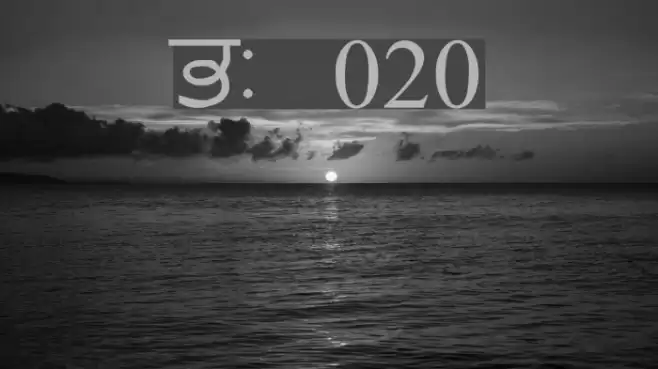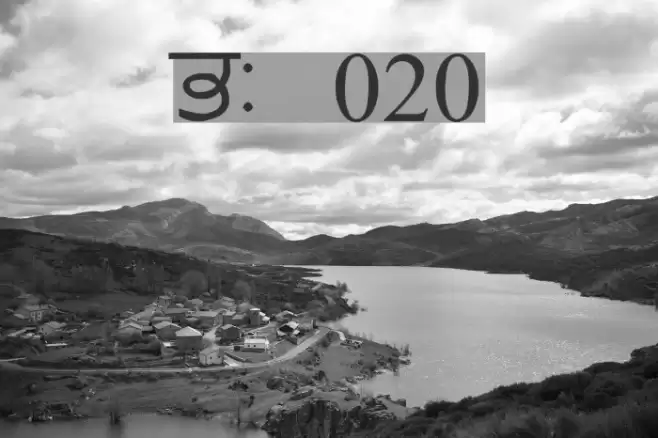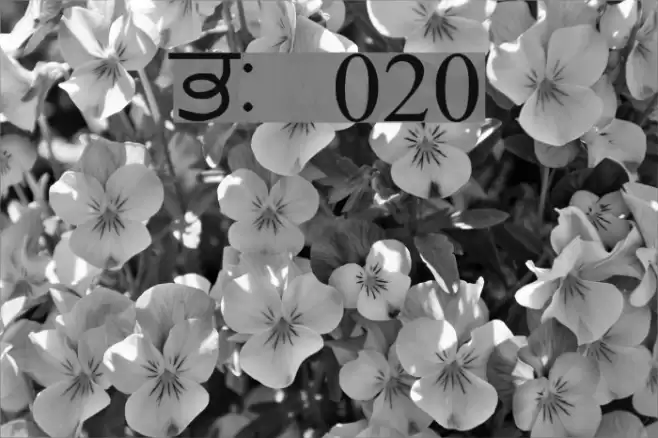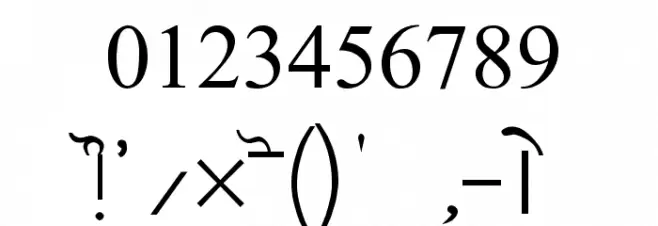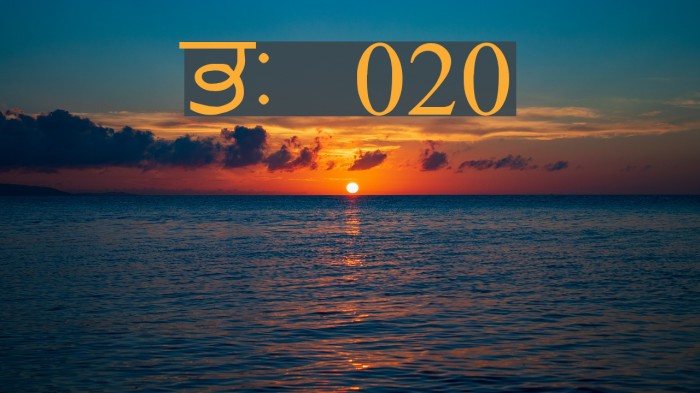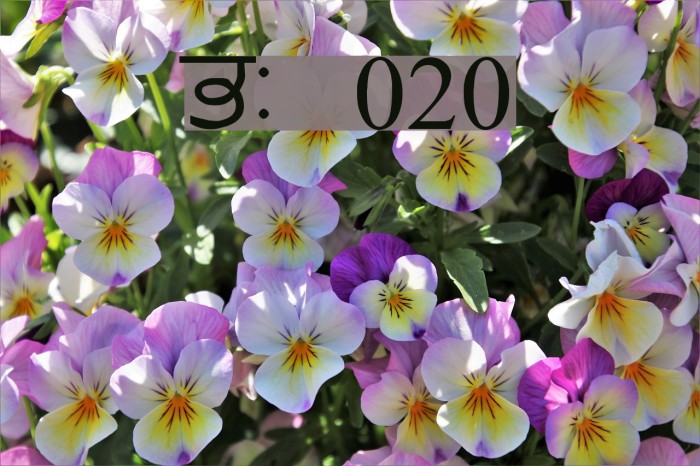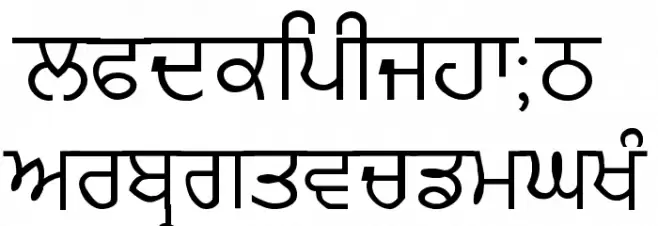
GurmukhiLys 020 Font
GurmukhiLys 020 Description
This font features the Gurmukhi script, characterized by its distinct horizontal line at the top of the letters, known as the 'headstroke'. The characters are well-defined with a balanced stroke width, providing clarity and readability. The numerals are styled to match the script's aesthetic, maintaining consistency across the typeface. The special characters are integrated seamlessly, offering a comprehensive set for various uses. The overall design is modern yet retains traditional elements, making it suitable for both digital and print media.
A modern Gurmukhi script font with clear, balanced strokes and comprehensive character support from Asian fonts.
- Proposed Projects: Ideal for educational materials, cultural publications, digital content, and signage requiring Gurmukhi script.
- Use Case: Headlines, Body text, Educational materials